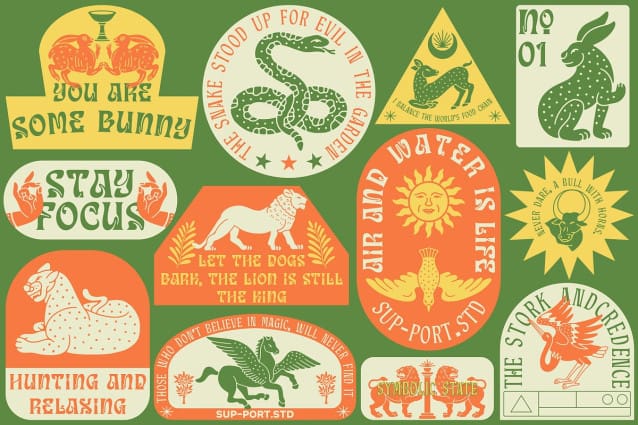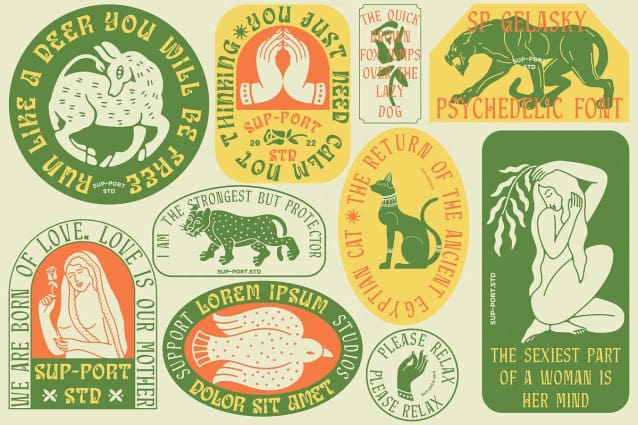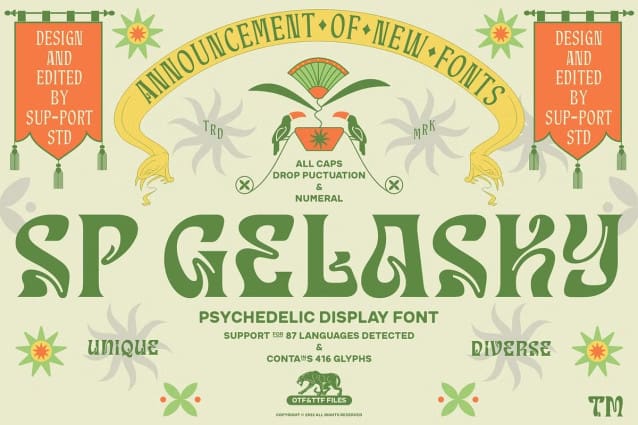
SP Gelasky Font
SP GELASKY Font is a bundled collection of Two Styles in one font + 81 BONUS FREE Vector Illustration with a dynamic style, following the current trends, it can include a medieval style look & modern vintage. These bundles would be perfect to combine in your design.